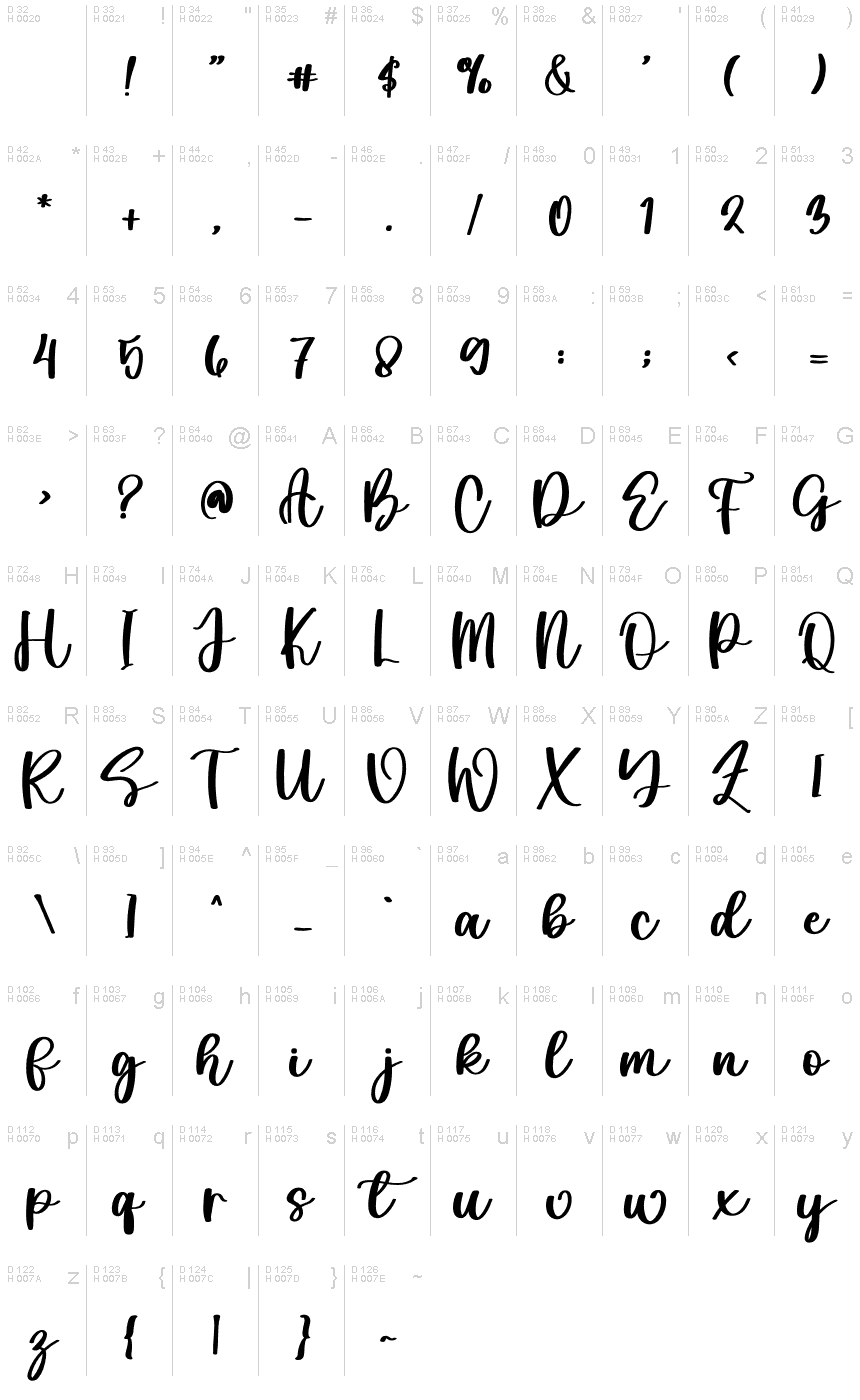
Back To School
Looking for a font that captures the carefree essence of the school days? Look no further than Back To School, designed by FreshtypeINK. This casual handwritten font is perfect for a variety of projects, from yearbook layouts to classroom posters. Its playful style is sure to bring a touch of nostalgia to any design, while also providing excellent readability. Whether you're designing an educational brochure or creating a custom invitation for a back-to-school party, Back To School is the ideal choice. So why not add some personality and fun to your next project with this charming font?